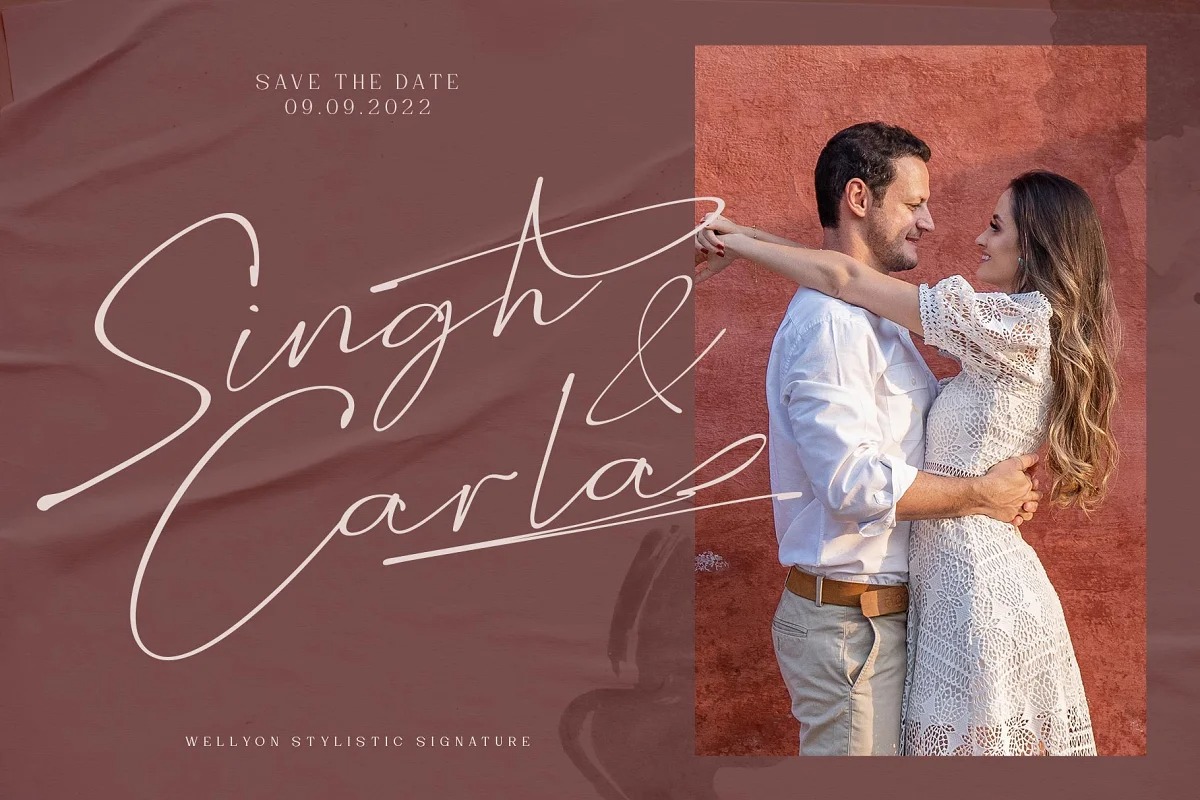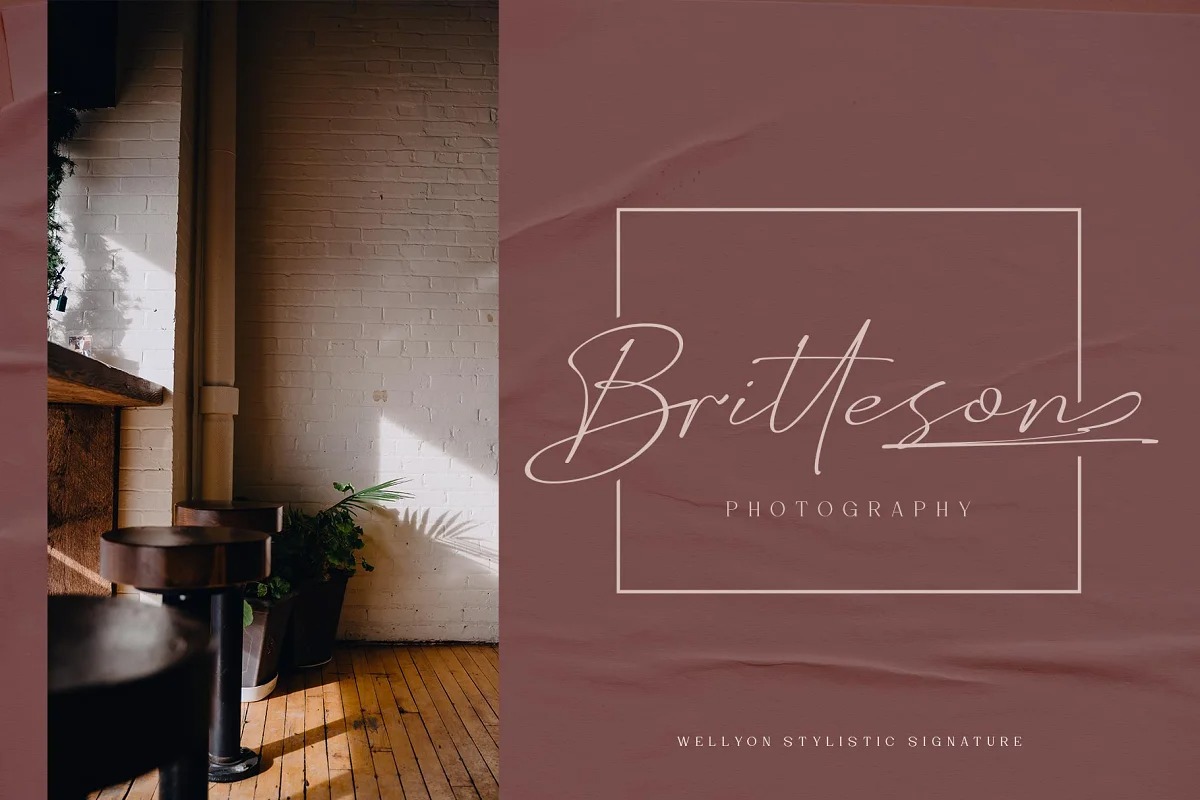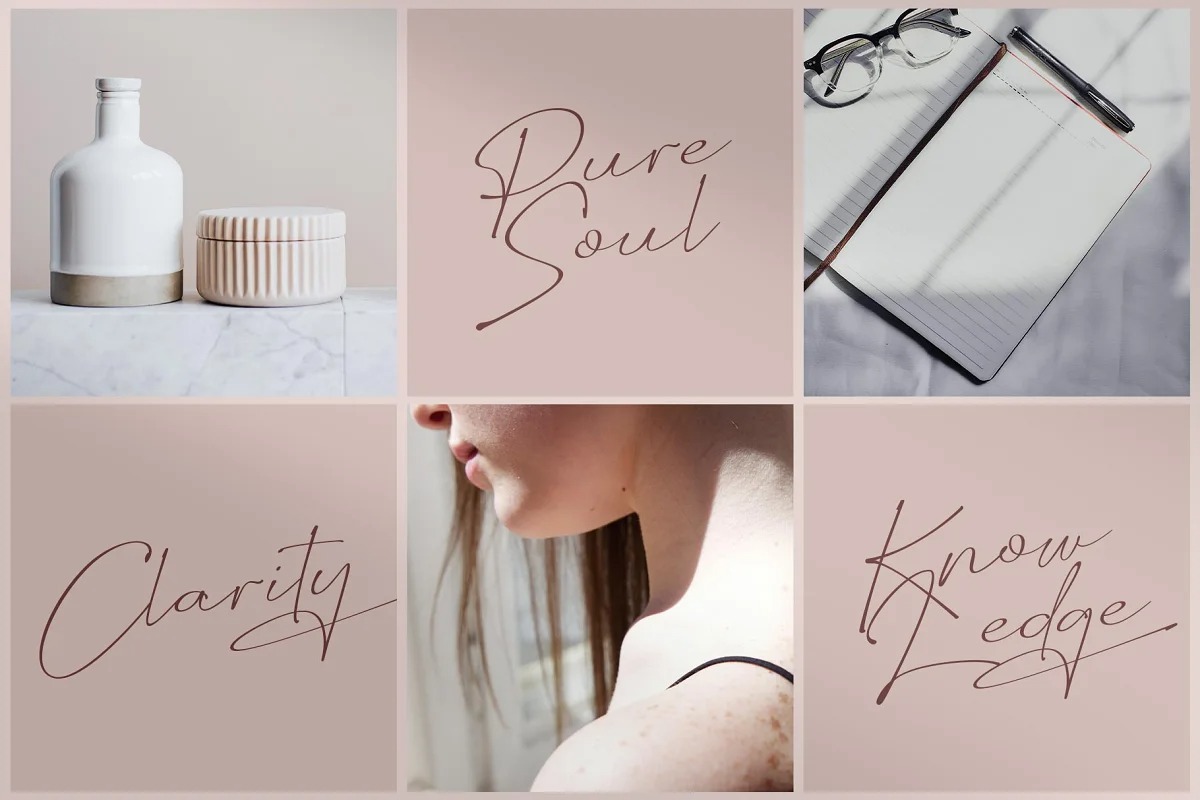
Wellyon Font
Wellyon Script Font is a sweet and cursive handwritten typeface manufactured by alit design. This gentle font will look gorgeous on a variety of design ideas. The Wellyon Signature Script font looks unique and charming which makes designs using the Wellyon Signature Script look more prominent and cool. The Wellyon Signature Script font is perfect for a collection of new fonts on your computer, tablet and smartphone for making unique designs or lettering.
The Wellyon Signature Script font is perfect for magazine cover designs, brochures, flyers. Instagram ads, Canva Design and so on with unique and modern concepts. besides that this font is very easy to use both in design and non-design programs because everything changes and glyphs are supported by Unicode (PUA).